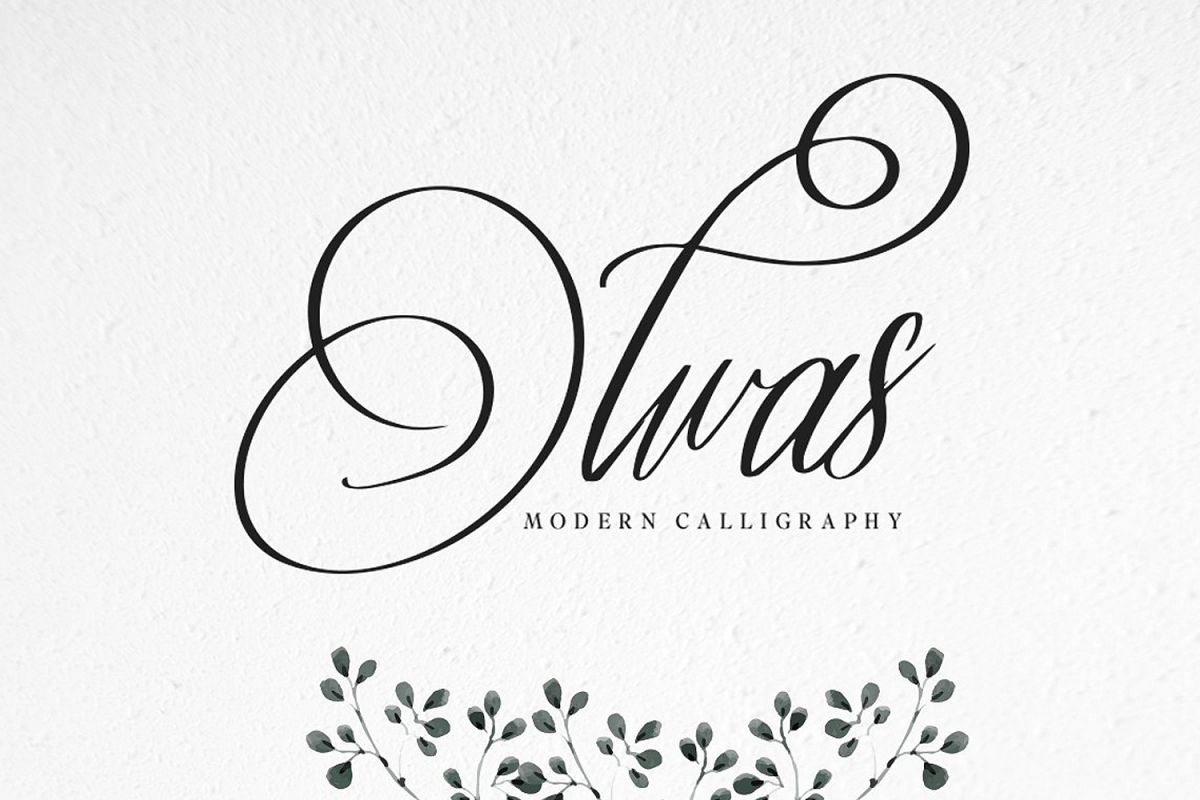
Olwas Script (Extra bonus 200+ ornaments)
Olwas Script is a modern calligraphy font.
A beautiful font for logotype, website header, fashion design,wedding card design and any more.
Olwas comes with elegant style, It also comes as a Olwas font, and a Olwas Italic font. It contains a full set of lower & uppercase letters, a large range of punctuation, and numerals